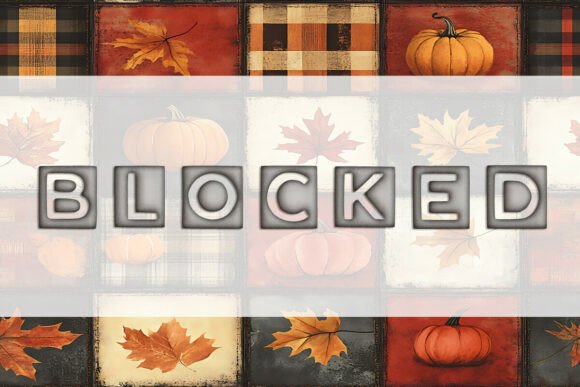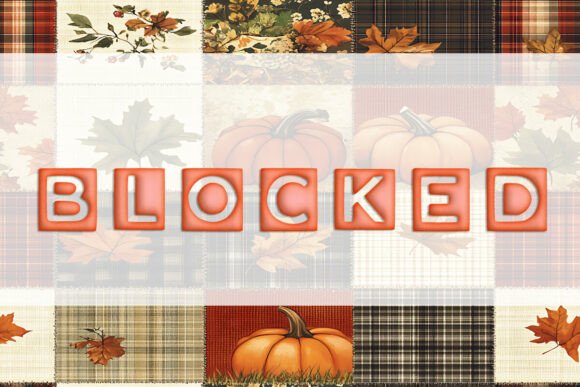
Unlock the Creative Potential of Blocked Font: Elevate Your Designs with Precision and Style
Immerse yourself in the captivating charm of Blocked Font, a versatile and stylish addition to any designer’s toolkit. Whether you’re looking to spruce up your T-shirts, stickers, branding materials, magazines, or heartfelt greeting cards, this font is the perfect choice. Its unique blend of design precision and visual allure makes it an ideal match for a wide spectrum of creative endeavours.
Unleash Your Creativity with Blocked Font
Blocked Font is more than just a font – it’s a design statement. Its bold, blocky letters are perfect for making a statement, adding a touch of luxury to your branding efforts, and elevating the appeal of your designs. Whether you’re a seasoned designer or a crafter, this font is sure to inspire your creativity and take your projects to the next level.
Blocked Font is incredibly versatile, making it suitable for a wide range of applications. Here are just a few examples of how you can use this font to enhance your designs:
- T-shirts and Stickers: Add a touch of style and personality to your apparel and accessories with Blocked Font.
- Branding: Elevate your brand’s visual identity with this luxurious font, perfect for logos, business cards, and more.
- Magazines and Publications: Add a touch of sophistication to your publications with Blocked Font, ideal for headings, titles, and more.
- Greeting Cards: Create heartfelt and stylish greeting cards with Blocked Font, perfect for special occasions.
- SVG Files: Use Blocked Font to add a touch of elegance to your SVG files, perfect for cutting machines and more.
- Cricut Projects: Take your Cricut projects to the next level with Blocked Font, ideal for paper crafting, vinyl cutting, and more.
- Posters: Create eye-catching posters with Blocked Font, perfect for advertising, promotions, and more.
Enhance Your Social Media Presence
In today’s digital age, having a strong social media presence is crucial for designers, crafters, and businesses alike. Blocked Font can help you elevate your social media game with its unique and stylish design. Use it to create eye-catching graphics, posts, and stories that are sure to grab the attention of your audience.
Why Choose Blocked Font?
So why choose Blocked Font over other fonts? Here are just a few reasons why this font stands out:
- Unique Design: Blocked Font features a unique and stylish design that’s sure to make your designs stand out.
- Versatility: This font is incredibly versatile, making it suitable for a wide range of applications.
- Design Precision: Blocked Font is designed with precision and attention to detail, ensuring that your designs look professional and polished.
- Visual Allure: This font has a unique visual allure that’s sure to grab the attention of your audience.
In conclusion, Blocked Font is a versatile and stylish font that’s perfect for designers, crafters, and businesses alike. Its unique design, versatility, and design precision make it an ideal choice for a wide range of creative endeavours. Whether you’re looking to elevate your branding efforts, add a touch of style to your T-shirts and stickers, or enhance your social media presence, Blocked Font is the perfect choice. So why wait? Unlock the creative potential of Blocked Font today and take your designs to the next level!